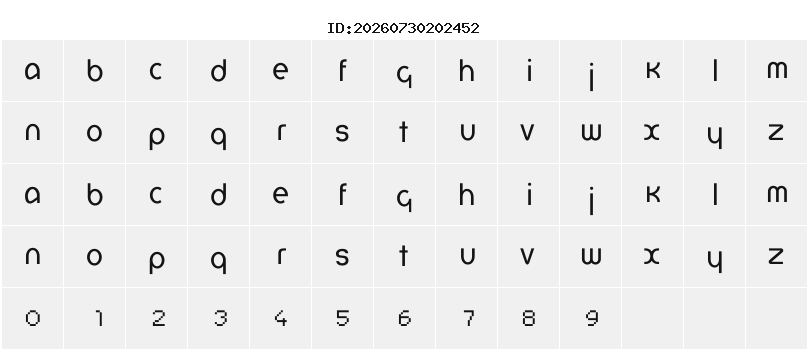
• Font Name: Lower Demo
• Full Font Name: Lower Demo
About Lower Demo.ttf
Lower Demo.ttf is a modern, elegant sans-serif font designed for ultimate readability and visual harmony. Perfect for branding, headlines, web design, and print materials.